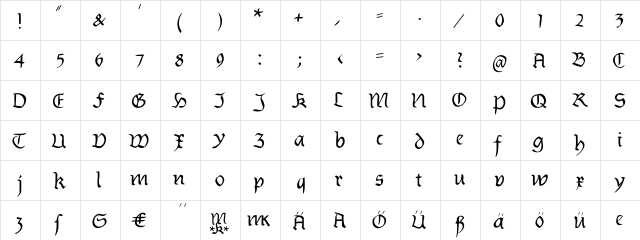
Burtinomatic Regular
Design Context for Burtinomatic Typeface
Burtinomatic is a composed and adaptable typeface that performs quietly and consistently across a wide range of design contexts.